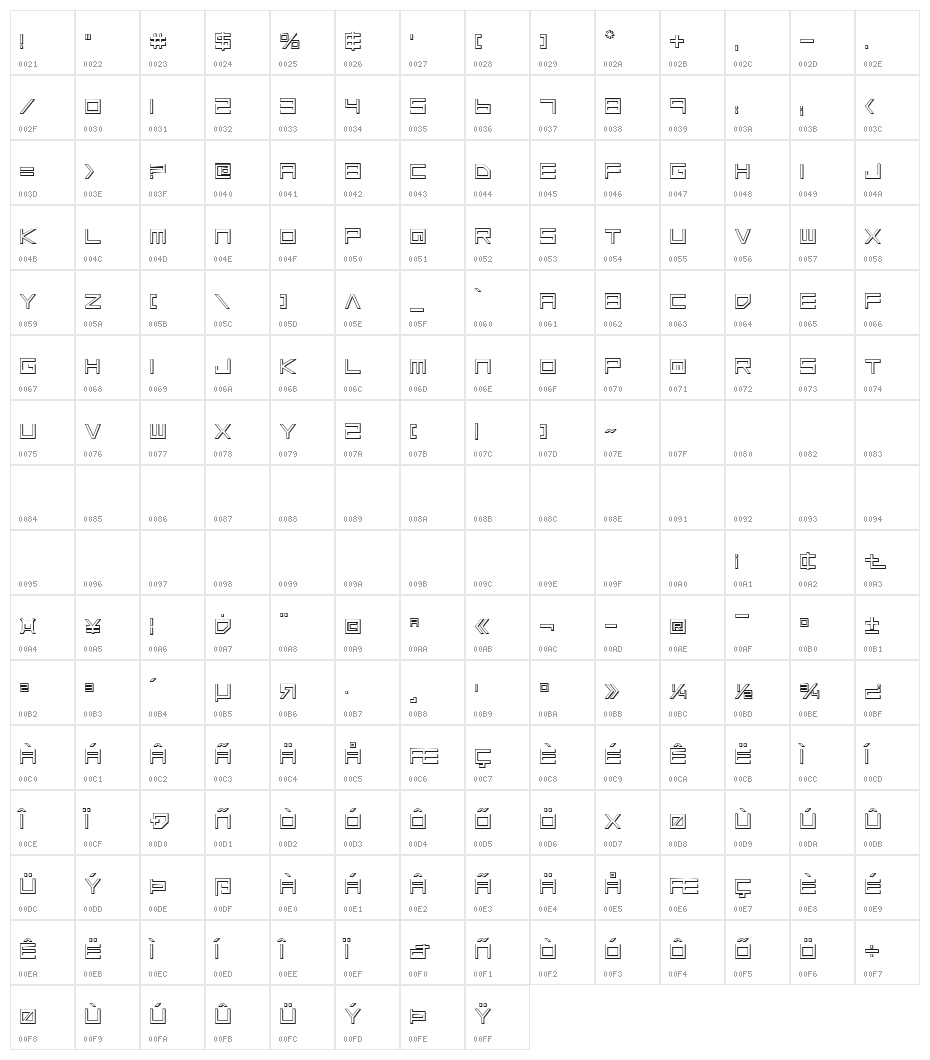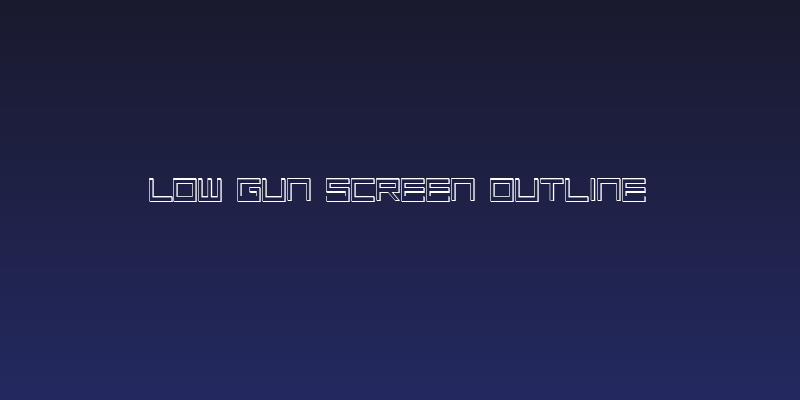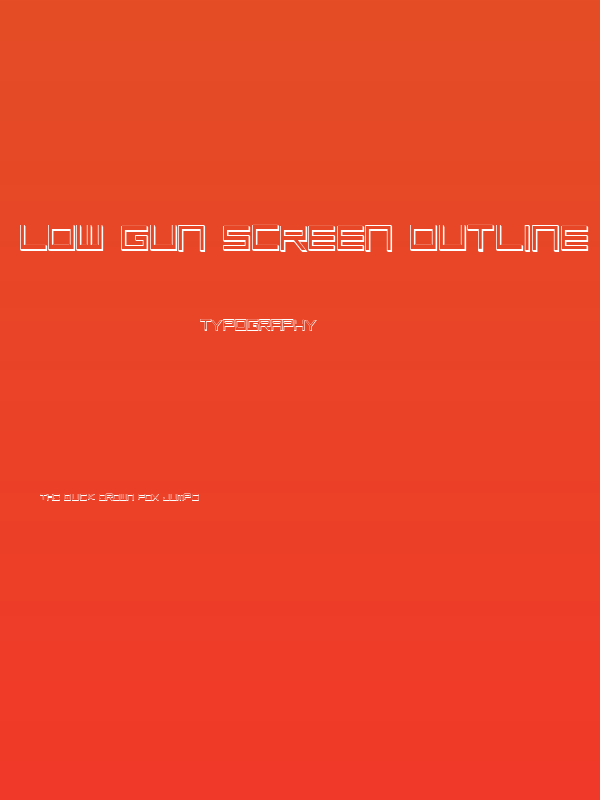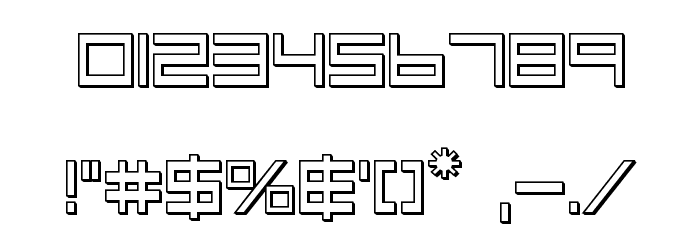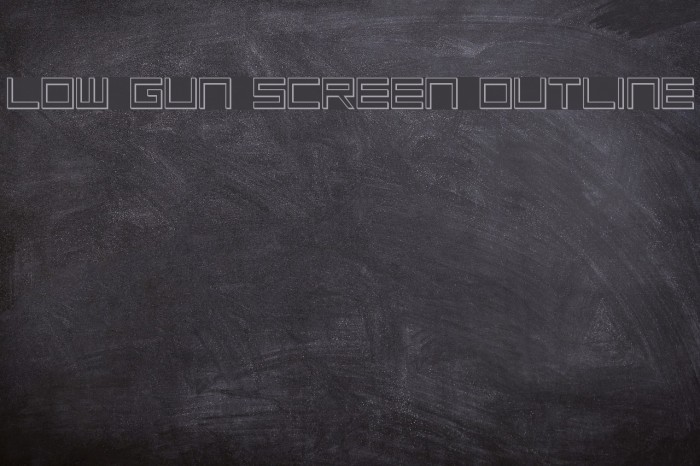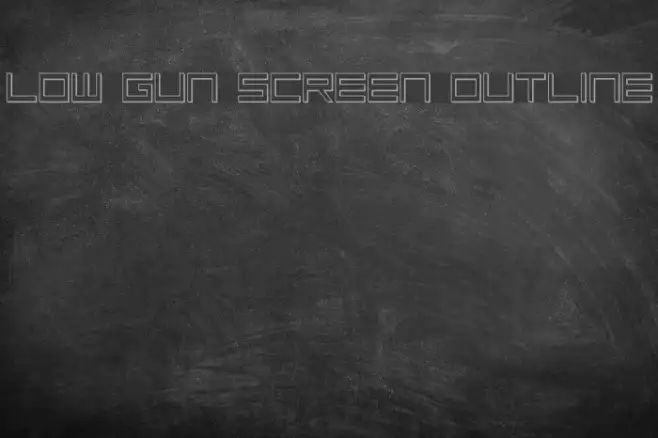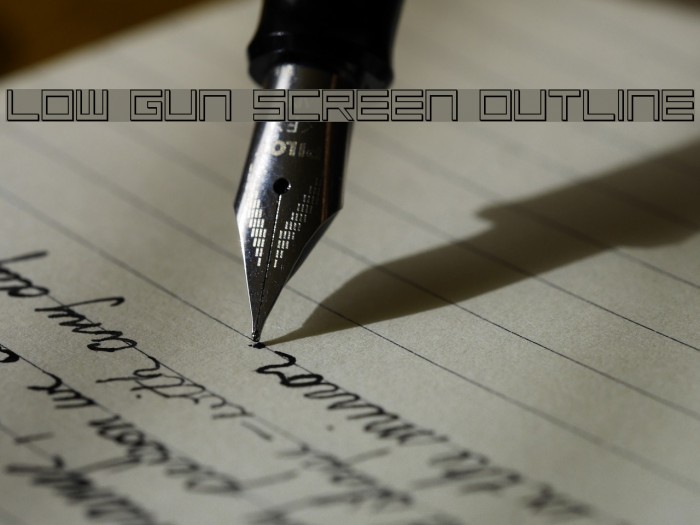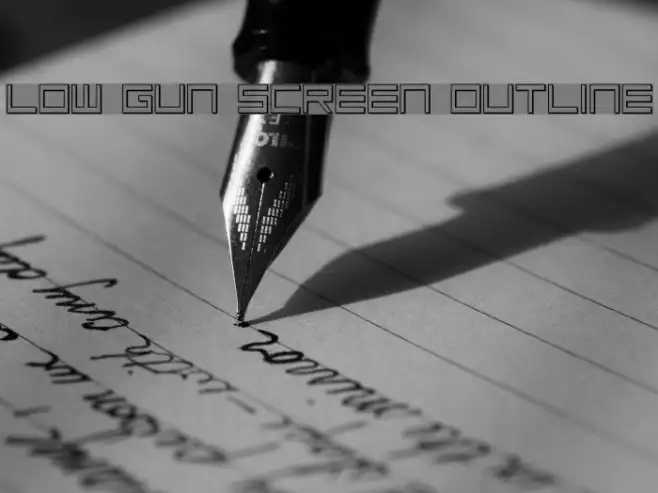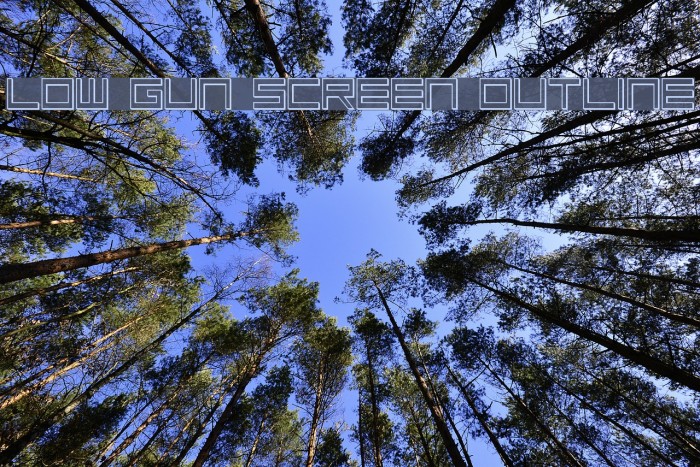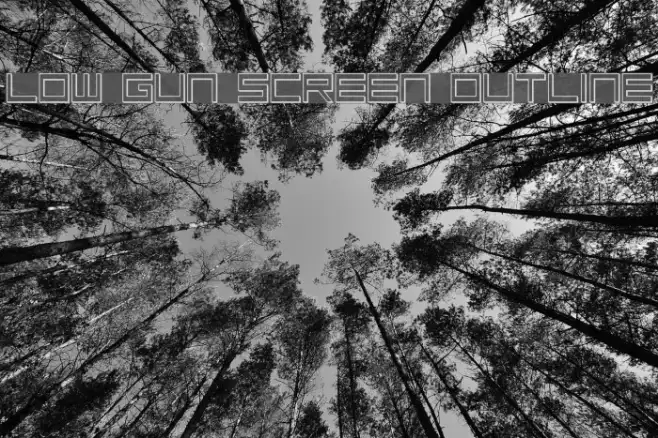
Low Gun Screen Outline Font
Low Gun Screen Outline Description
This font features a futuristic and geometric design with a distinct outline style. Each character is constructed with clean, angular lines that create a sense of precision and modernity. The uppercase and lowercase letters maintain a consistent height, contributing to a uniform appearance. The numerals and special characters are designed to match the angular theme, providing a cohesive look across all glyphs. The font's outline nature gives it a lightweight and airy feel, making it suitable for digital and print media where a modern, tech-inspired aesthetic is desired.
| Proposed Projects | Ideal for tech-related branding, digital interfaces, video game graphics, and sci-fi themed designs. |